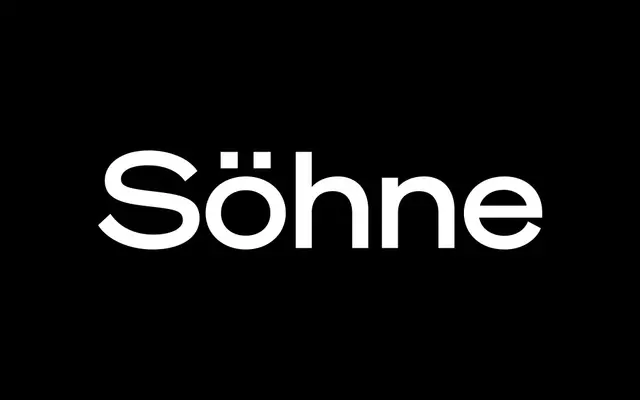
Söhne Breit
Klim Type Foundry · Kris Sowersby · 2019
The wide cut of Söhne, holding the family's Akzidenz-meets-Helvetica neutrality at expansive proportions for display and branding.
The wide companion to Söhne, drawn by Kris Sowersby with the same Akzidenz-Grotesk and Standard Medium reference points stretched horizontally. Eight weights from Extraleicht to Extrafett run with matching Kursiv italics, giving the same German weight nomenclature as the parent family. Brands reach for it when headlines need width and air without tipping into a true display face, often paired back with Söhne or Söhne Mono for body text.
Klim classifies it as Lineal: Grotesque; the wide cut in the Söhne system, capturing the analogue materiality of Standard Medium used in Unimark's NYC Subway wayfinding.